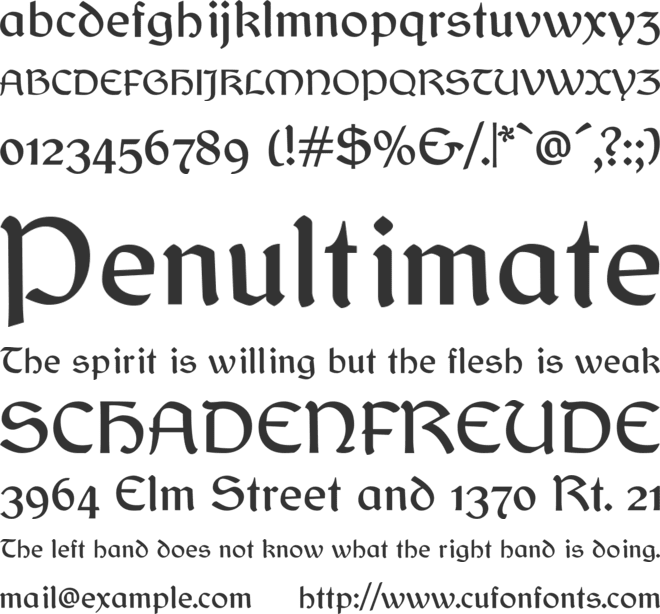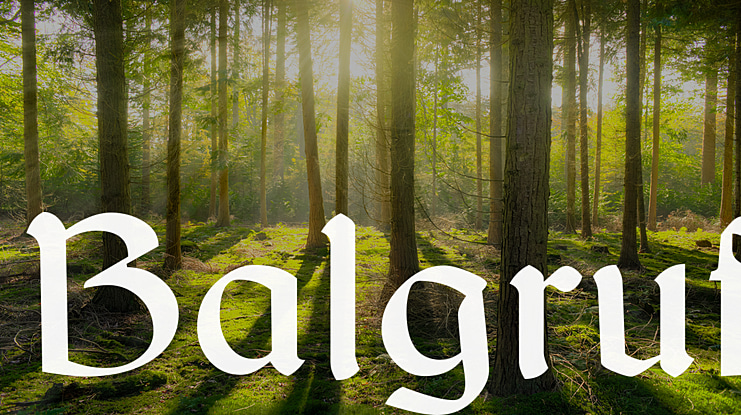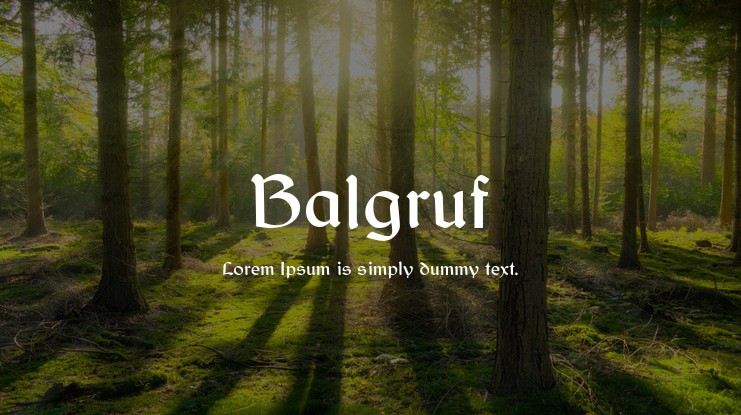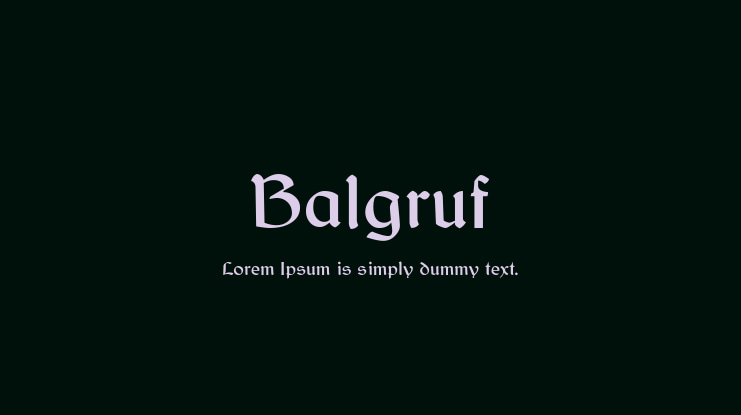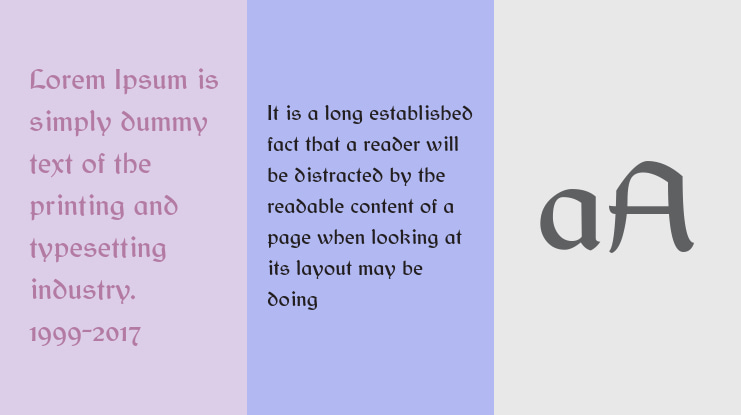
Balgruf is a decorative typeface, inspired by Skyrim game. Balgruf consists of 1 weight and corresponding italic. Balgruf is suitable for computer games.
As a typographer playing Skyrim by Bethesda I was annoyed by the font used in the books. The upper case ‘F’ seemed to have been cobbled together from other bits of the font and didn’t fit with the aesthetic of the rest of the letters in the font, it also had a right side bearing which was much too large.
As if it had been hastily made by a graphic designer with no experience in typography who was on a strict deadline.
Once you ‘see’ this mistake you cannot unsee it and it was annoying.
So the question arose, how would I have done it?
This font is the answer to that question.